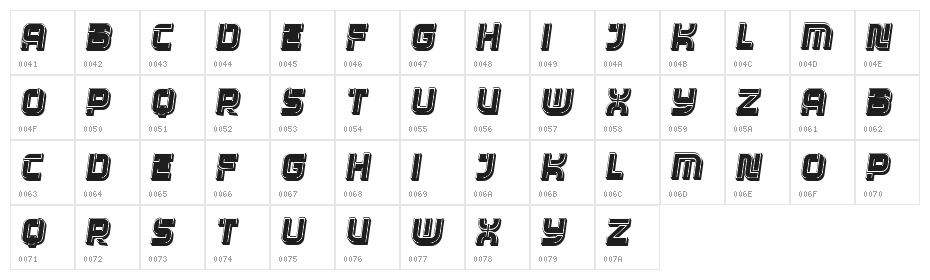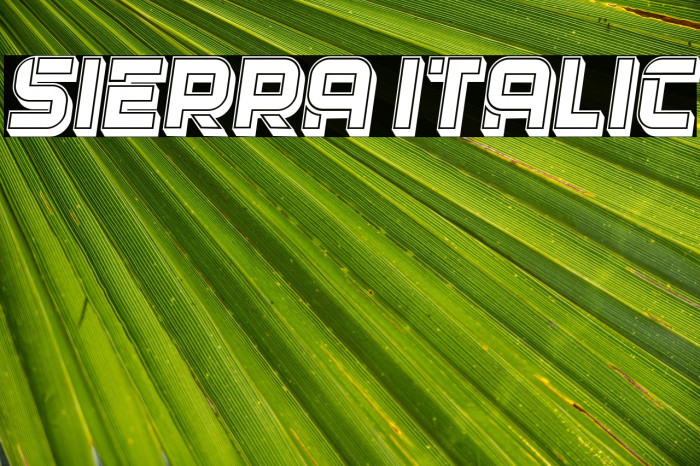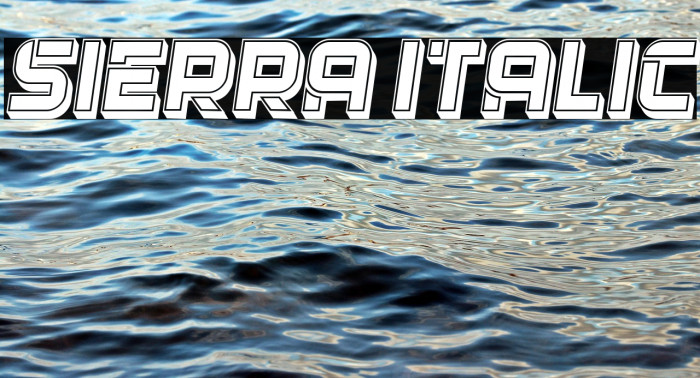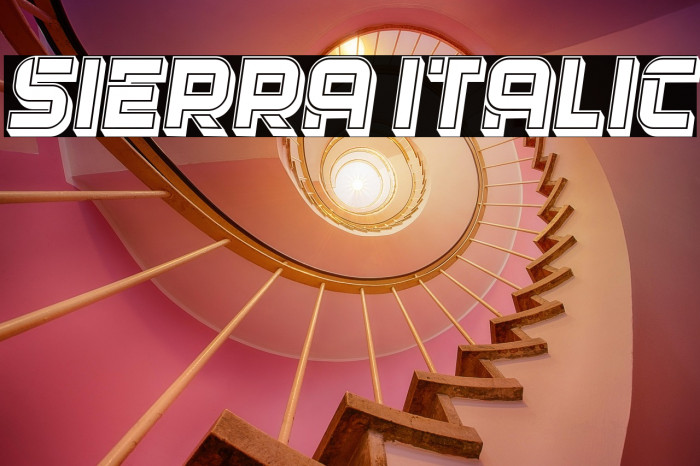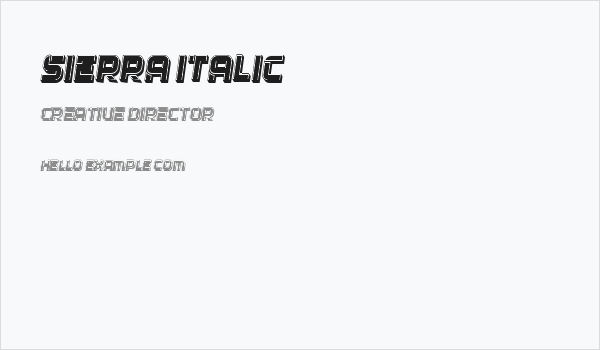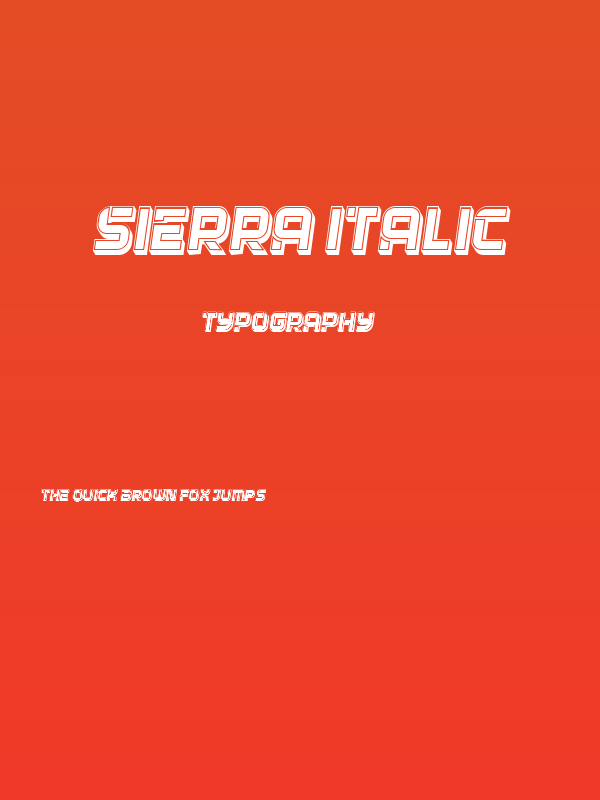
Sierra Italic Font
Sierra Italic Description
This font features a bold, dynamic style with a strong geometric influence. The characters are outlined with a double-layered effect, giving them a three-dimensional appearance. The angular and blocky design is consistent across all letters, creating a cohesive and striking visual impact. The uppercase letters are particularly prominent, with sharp edges and a futuristic feel. The font's unique style makes it ideal for projects that require a modern and edgy look.
| Proposed Projects | Ideal for use in branding, posters, video game titles, and futuristic-themed designs. |